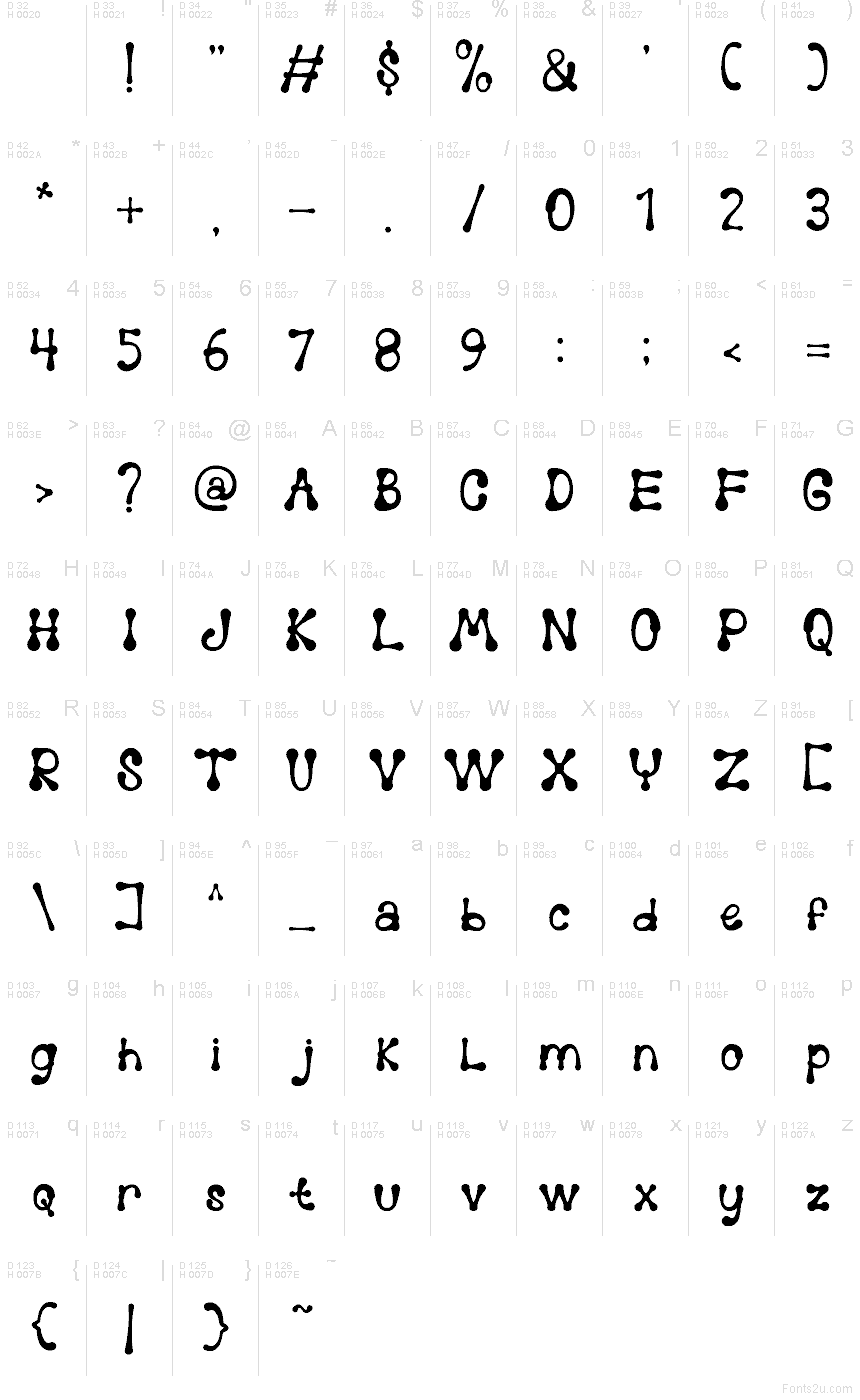
Melting Dessert font by PutraCetol Studio is a free groovy display typeface that looks like it’s sliding off the page in sugary drips. Its rounded, blobby shapes and playful wobble give every word a gooey, hand-piped feel, like soft-serve or melting candy letters in a shop window. The slightly uneven rhythm keeps it fun and organic, while the bold, inky strokes make it instantly readable at big sizes.
Using Melting Dessert, you can shout out ice cream menus, candy packaging, children’s book covers, party invitations, festival posters, and playful social media graphics with the same sticky-sweet energy. This free font shines on bold headlines and short phrases; pair it with a clean sans serif in smaller text to keep things balanced and legible.